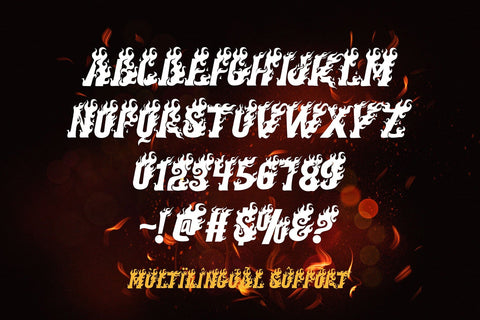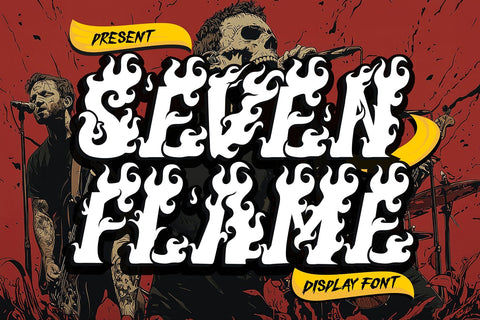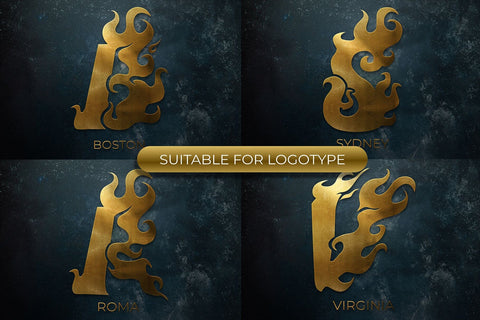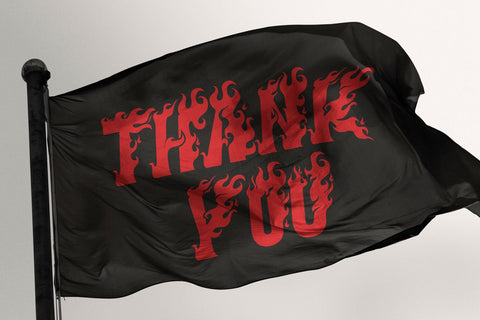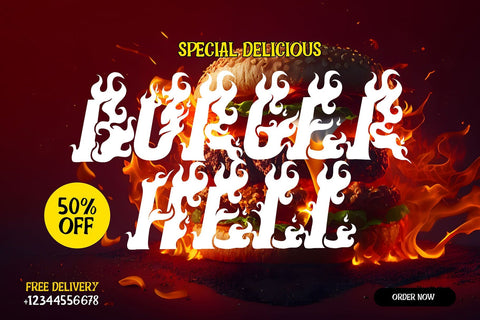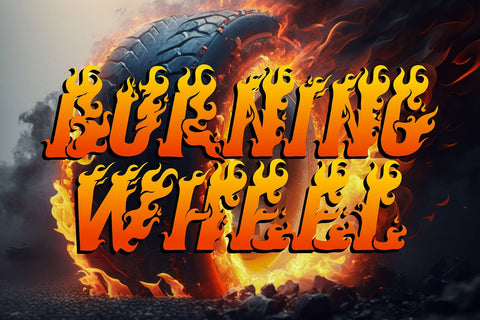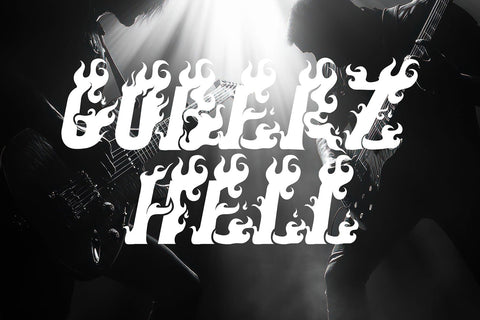
Seven Flame - Burning Fire Display Font
"Seven Flame is a themed display font that ignites a fiery, intense vibe with burning flames integrated into each character. This unique font brings heat and energy to any project, making it ideal for designs that demand attention. With its bold, flame-filled letterforms, Seven Flame captures the essence of fire and movement, creating an impactful and dynamic look. Perfect for posters, event graphics, album covers, and branding that needs a hot, blazing style, this font adds a dramatic touch to designs aimed at creating a powerful, unforgettable impression."
- Burning Fire Characters